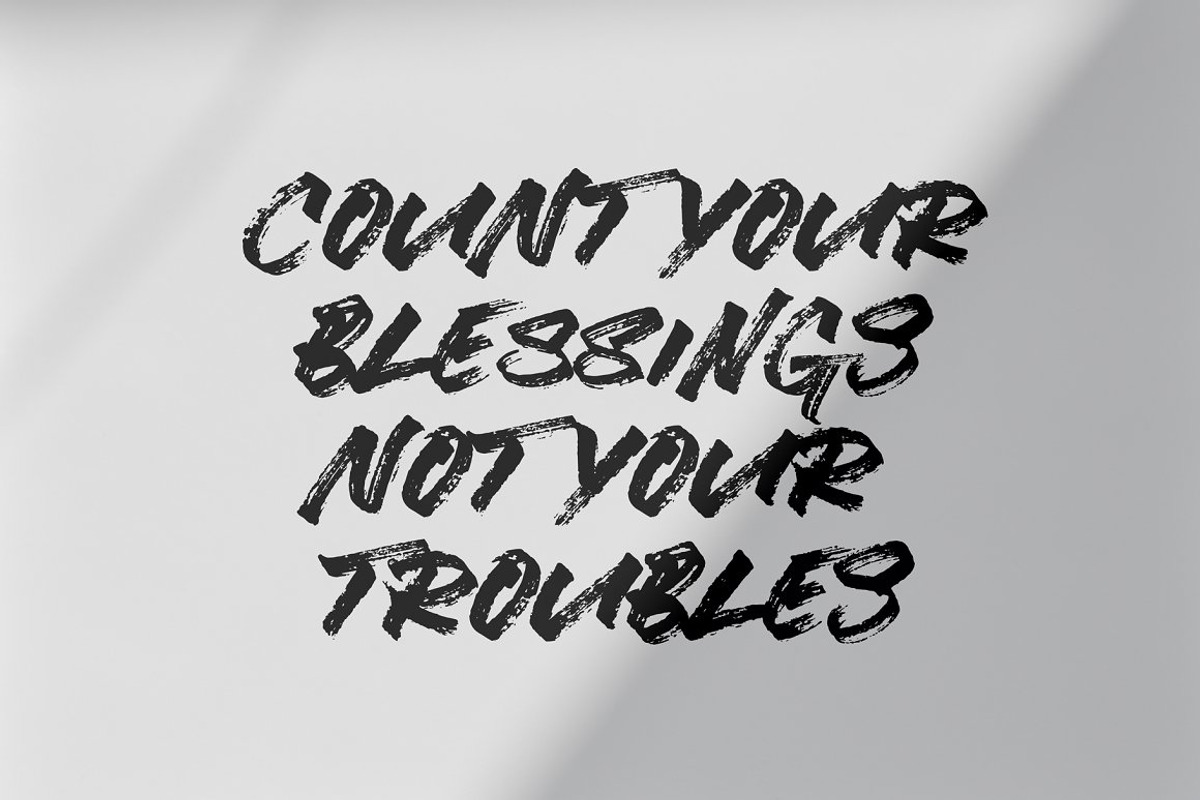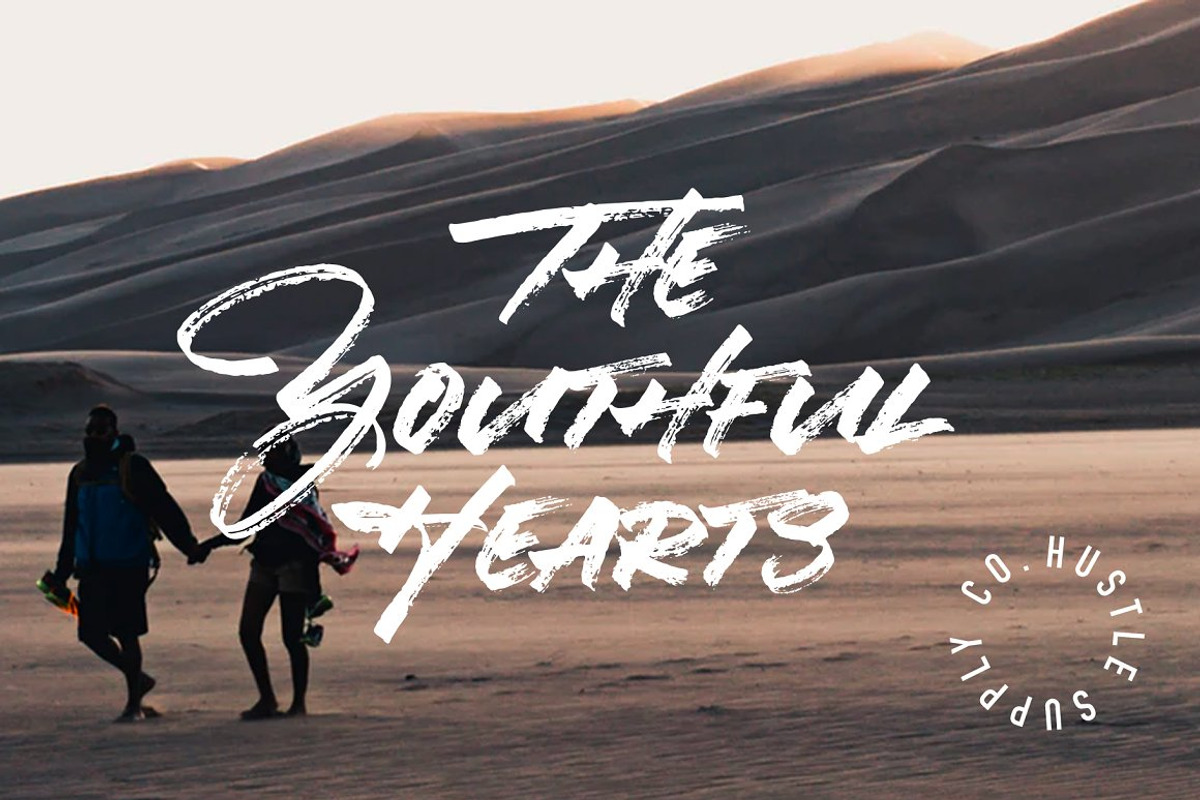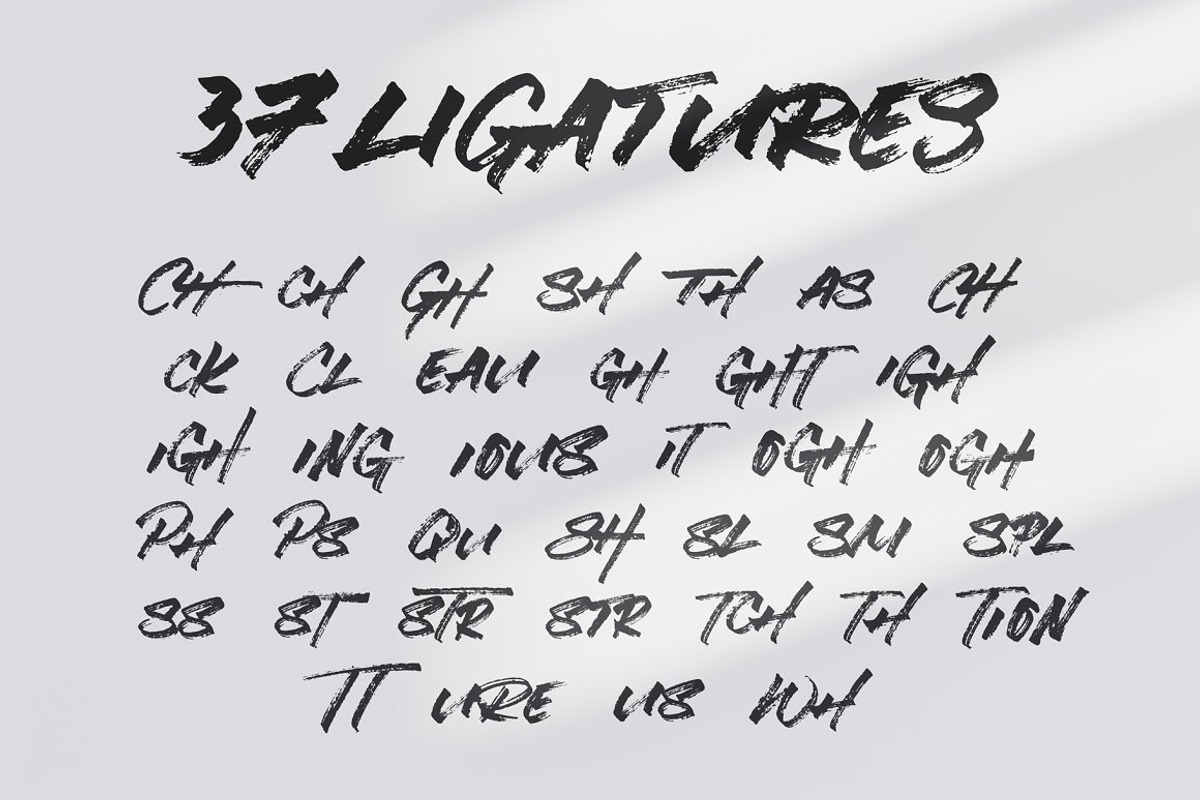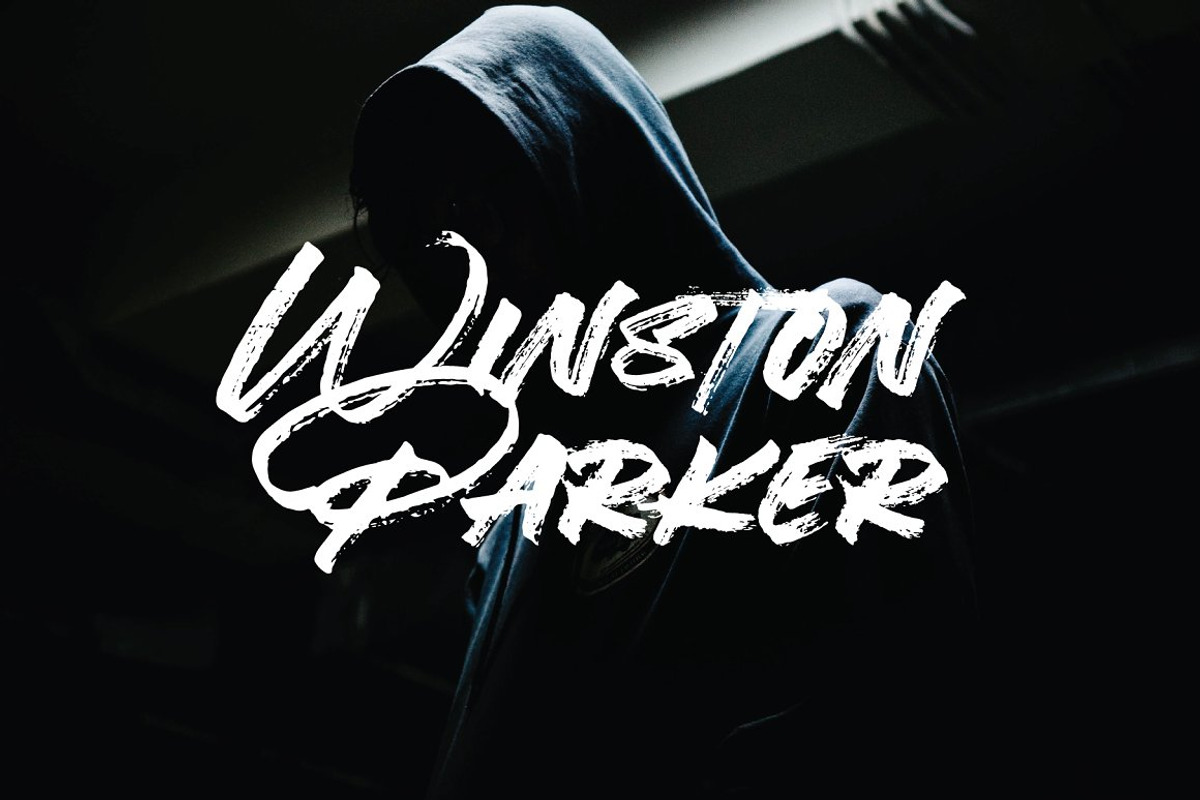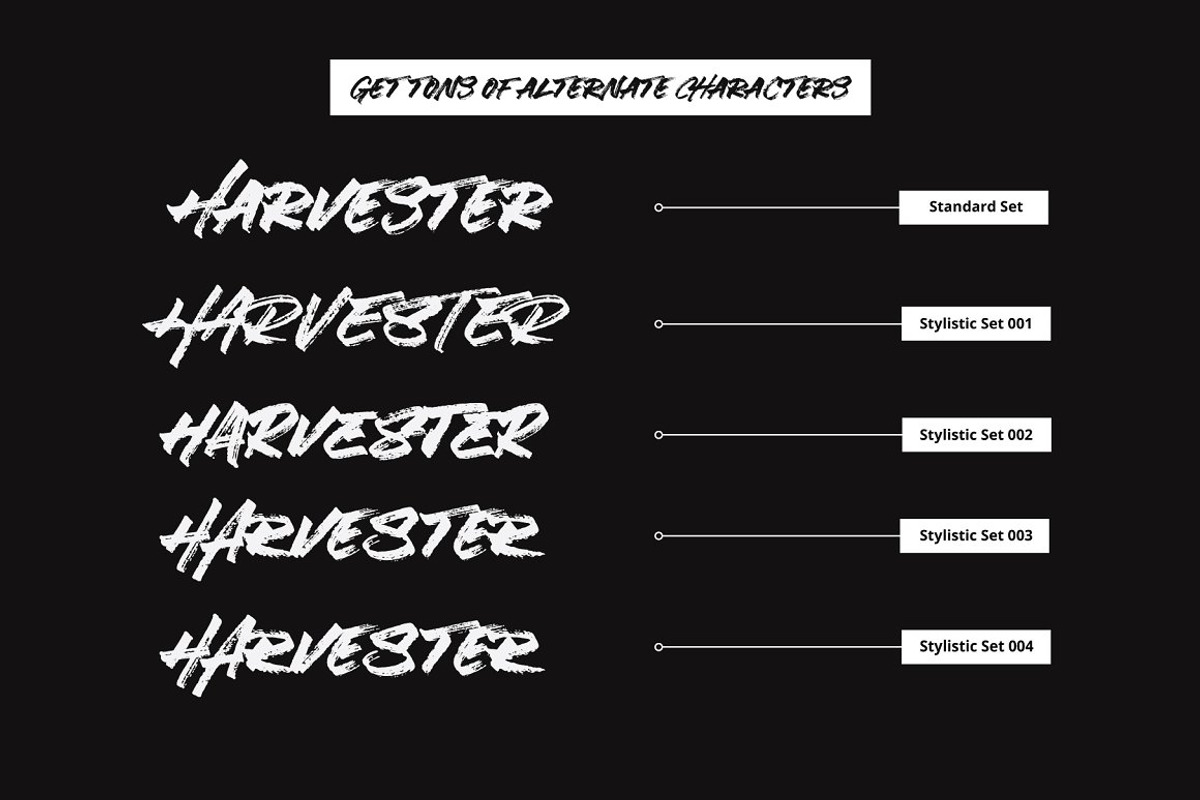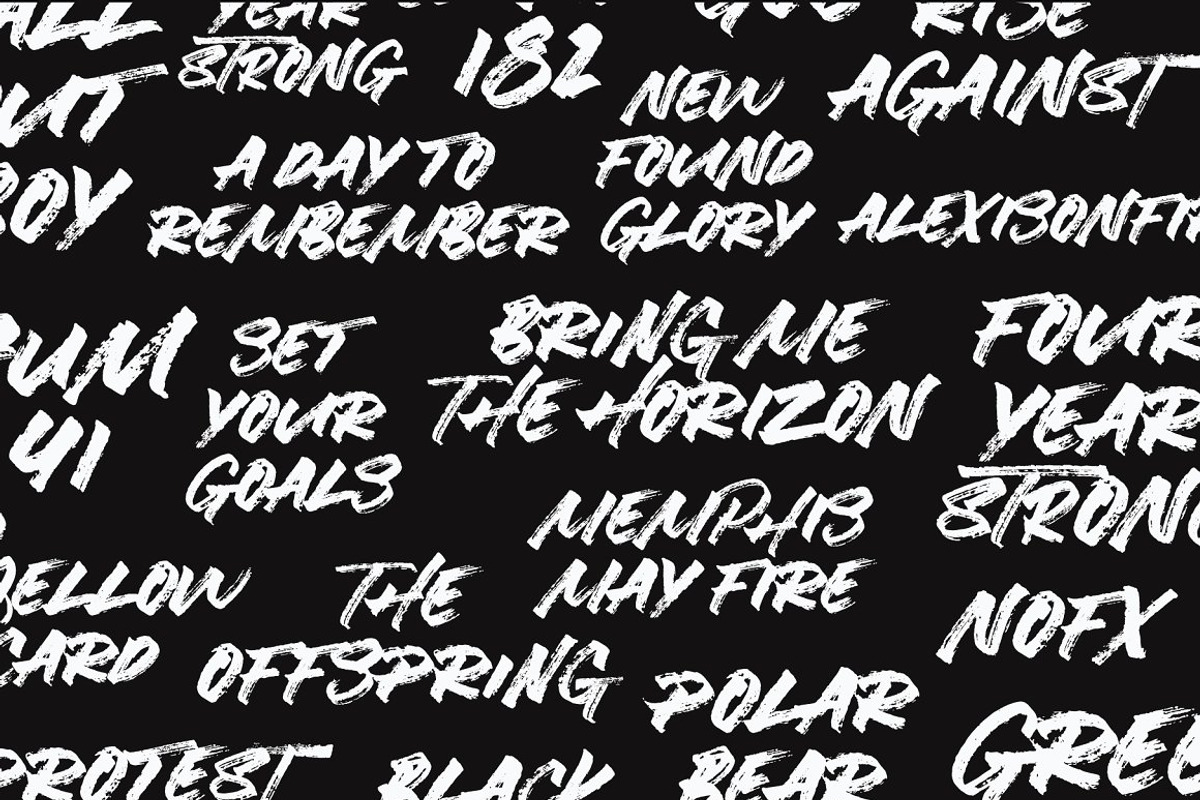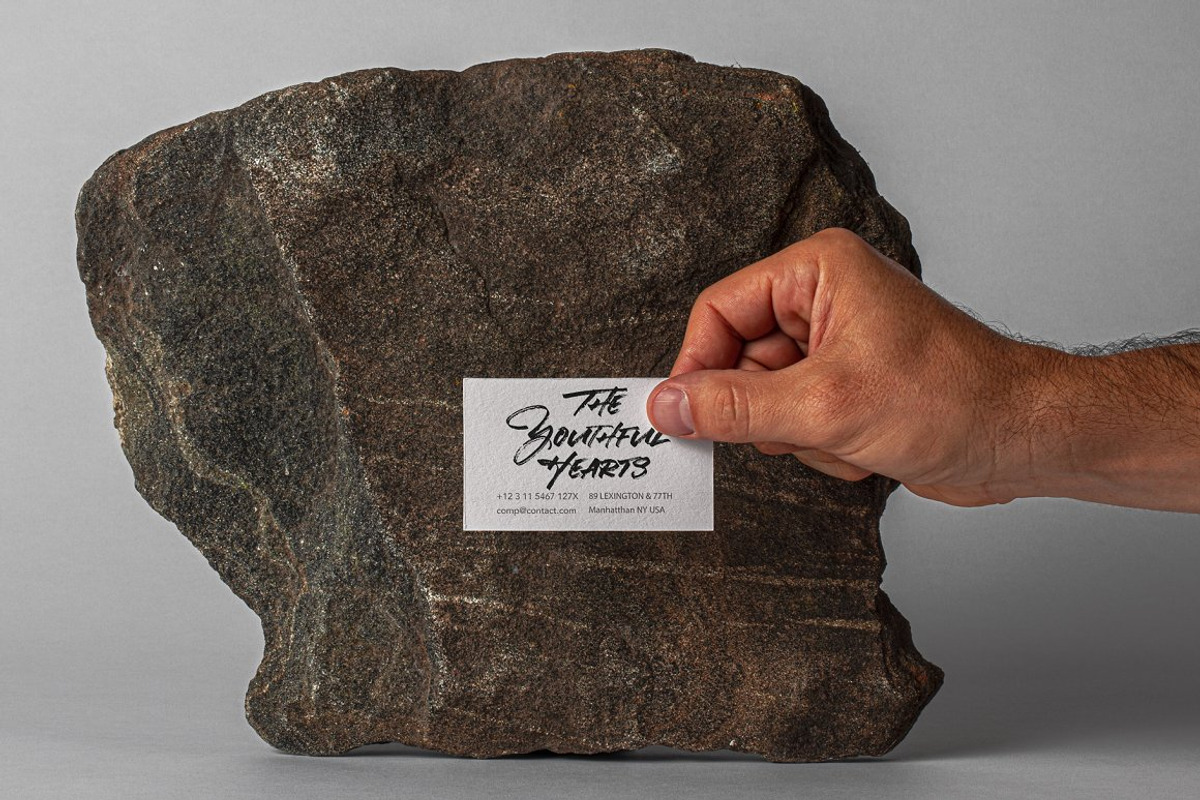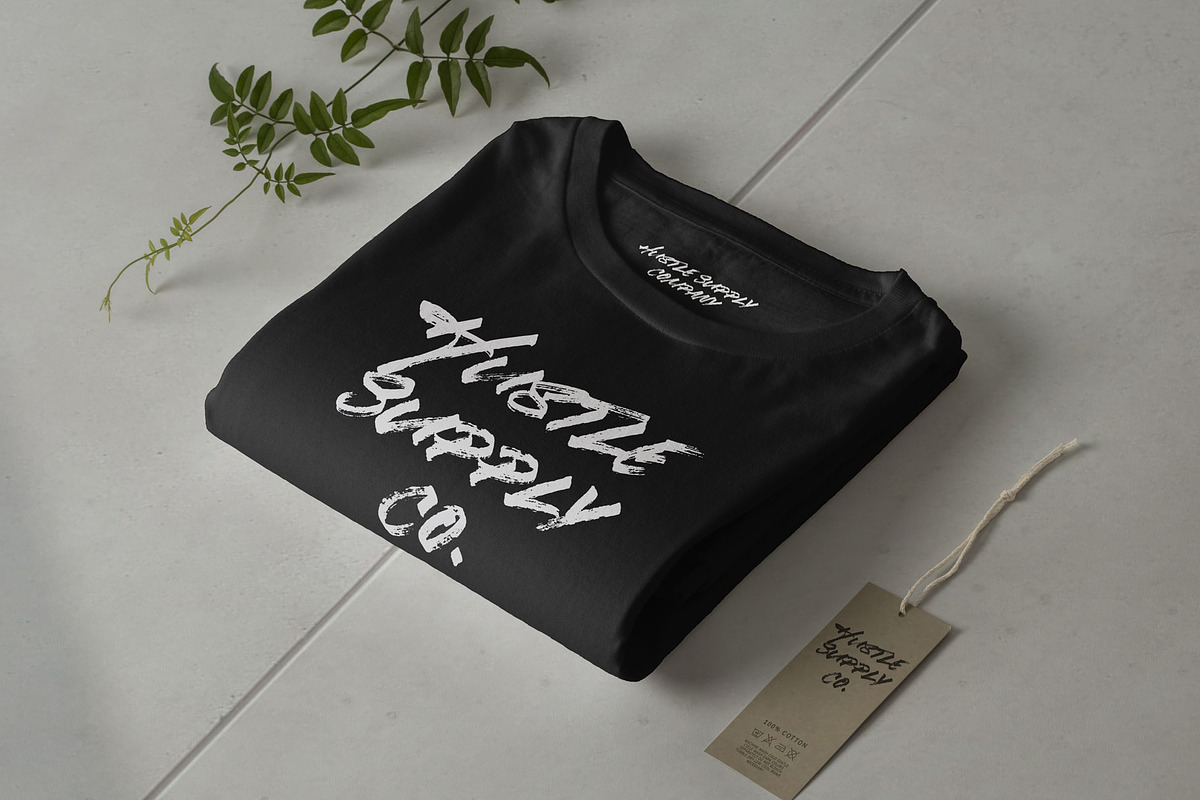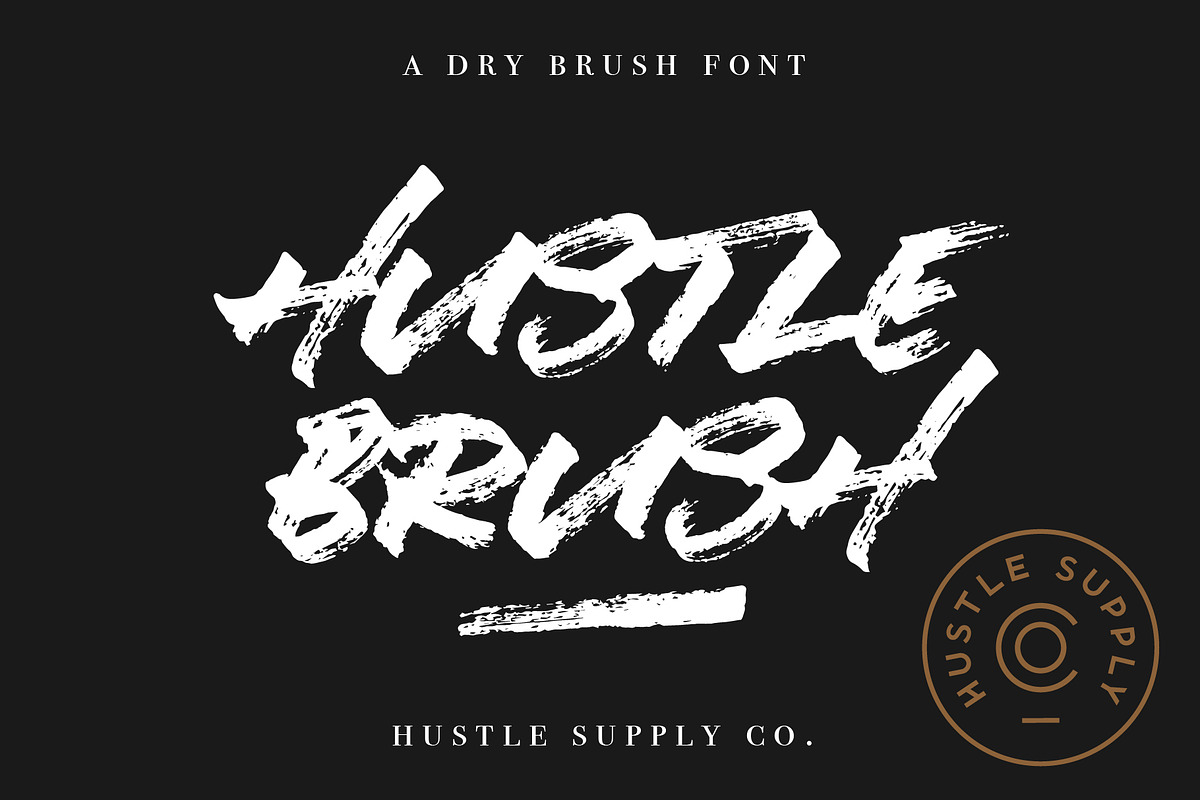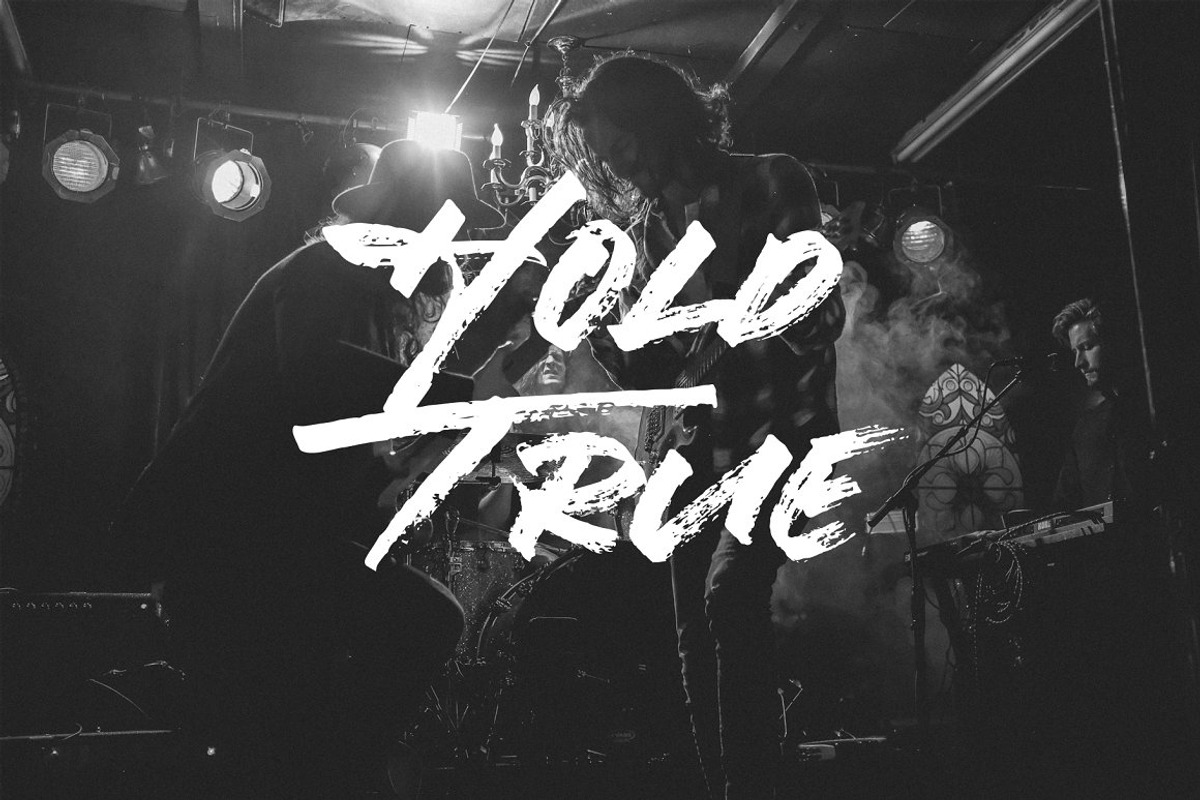
Hustle Brush
Introducing Hustle Brush, a naturally flowing brush typeface with tons of alternates. This typeface comes with both small caps & large capital letters. This gives the aesthetic of an All-Caps signature.
With Hustle Brush, I really tried to create a brush typeface that was as versatile as possible. With 4 Stylistic Alternate Sets, you can really personalize each word to your liking. I've also included multiple swashes & 37 Ligatures to give users a Typeface that they can continually go back to!